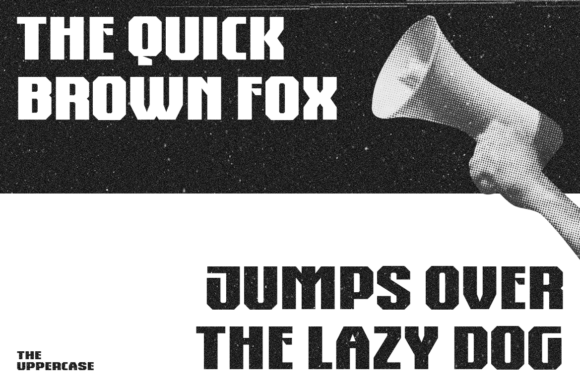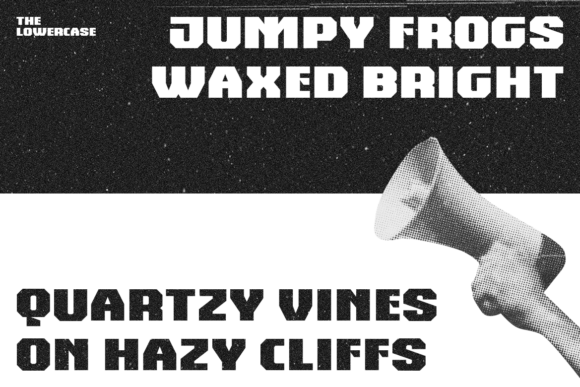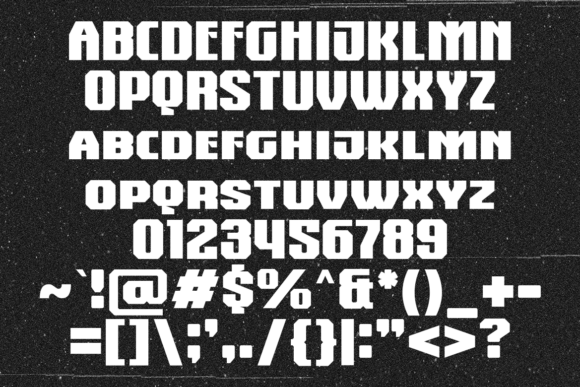
Introduction to Nelmins Font
Step into an era when voices were loud, and typefaces were louder.
Nelmins captures the raw energy of vintage rebellion, drawing from the spirit of punk band posters, worn-out merchandise, and the bold signs carried in the hands of those who dared to speak This font speaks to the bold, the free thinkers, and the creators who aren’t afraid to make their mark.